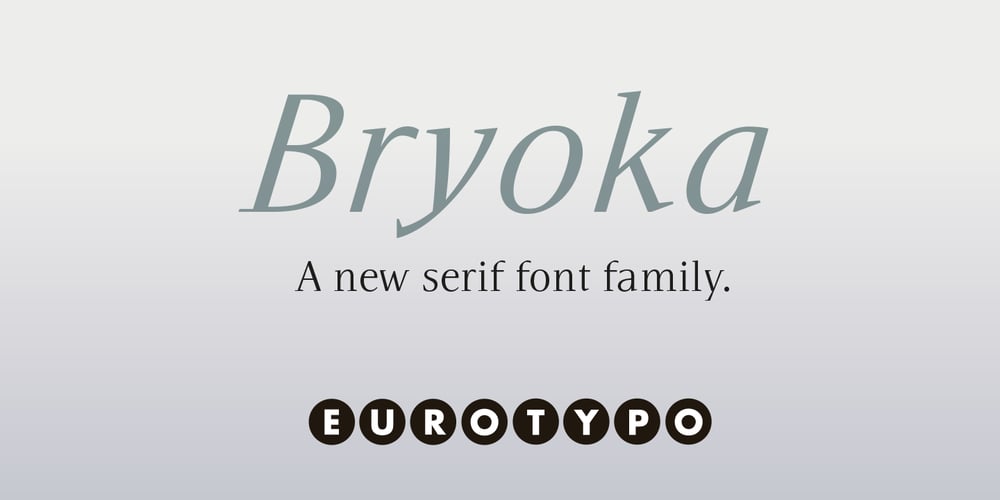
Bryoka Font Family was designed by Olcar Alcaide and published by Eurotypo. Bryoka contains 5 styles and family package options. Bryoka is a contemporary typeface that combines personality, modern aesthetics with readability. Whether you are working on editorial layouts, branding projects, or digital interfaces, Bryoka delivers a polished and professional appearance.This versatile font family includes four distinctive weights: Regular, Medium, Semi-Bold, and Bold. Additionally, it features a true italic version of the Regular weight, further expanding its creative potential. With Bryoka, you can achieve a harmonious blend of originality and elegance.